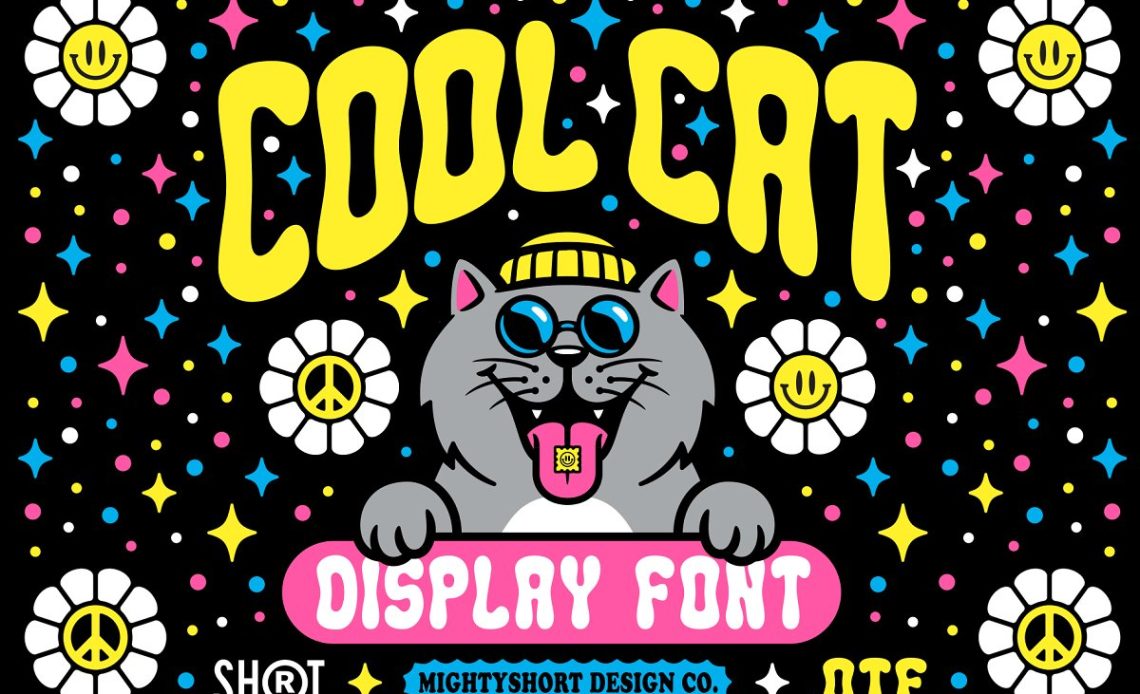
Are you tired of ordinary fonts that fail to capture the essence of your creative vision? Look no further! Introducing the Cool Cat Font, the ultimate font collection designed to infuse your artwork with a touch of coolness and uniqueness. Created by the talented Davy le Chevance, this font family is guaranteed to take your designs to a whole new level.
With the Cool Cat Font, you can instantly transform any project into a captivating masterpiece. Whether you're working on a logo, website, poster, or any other creative endeavor, this font is your secret weapon. It seamlessly blends classic elegance with a modern twist, making it perfect for both professional and personal use.
One of the standout features of the Cool Cat Font is its versatility. It offers a wide range of letters, numbers, and punctuation marks, allowing you to create eye-catching compositions effortlessly. Let your imagination run wild as you experiment with different styles, sizes, and layouts. The possibilities are endless, and the results are guaranteed to leave a lasting impression.
What sets the Cool Cat Font apart from the rest is its ability to evoke emotion and capture attention. Its unique style exudes confidence, individuality, and a hint of playfulness. With every letter, it tells a story and invites the viewer to embark on a visual journey. Stand out from the crowd and make a statement with this font that speaks volumes.